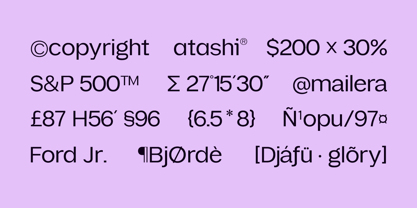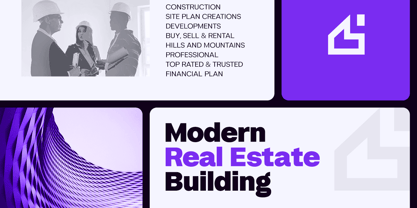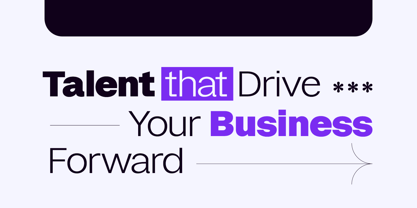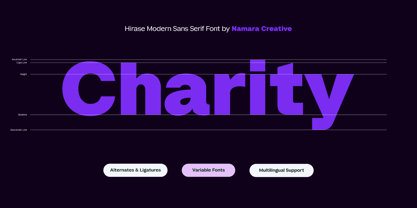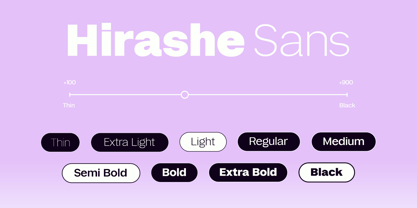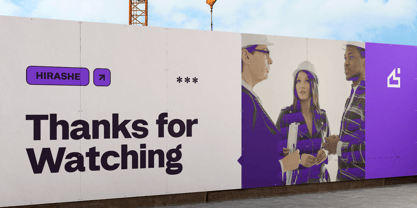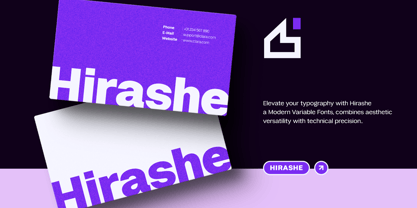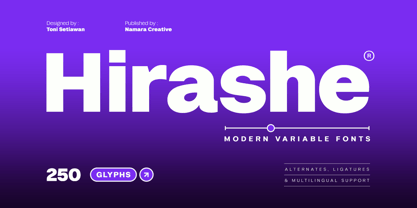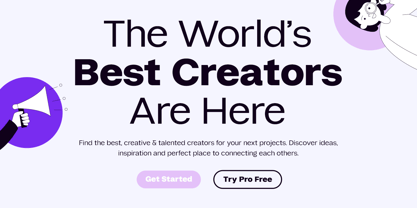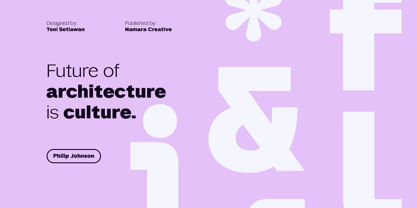
Hirashe Sans Variable
by Namara Creative Studio
The Hirashe Sans Variable Font Family was designed by Toni Setiawan and published by Namara Creative Studio. Hirashe Sans Variable contains 1 styles. More about this family
9 font Weight (Thin, Extra Light, Light, Regular, Medium, SemiBold, Bold, Extra Bold, Black) with Italic Version in Total 18 font - styles.
Elevate your typography with Modern Variable Fonts, combines aesthetic versatility with technical precision. this font family redefines flexibility for modern digital and print projects.
• Dynamic Adjustability Seamlessly control weight with a single variable font file, optimizing performance and creative freedom.
• Over 250+ Glyphs A rich library of characters, including alternates, ligatures, and extensive multilingual support for global communication.
• User-Friendly Simply move a slider to fine-tune the look—no advanced tools or coding required.
From websites and branding to packaging and editorial layouts, this font ensures consistency and a refined finish with minimal effort.
Designers: Toni Setiawan
Foundry: Namara Creative Studio